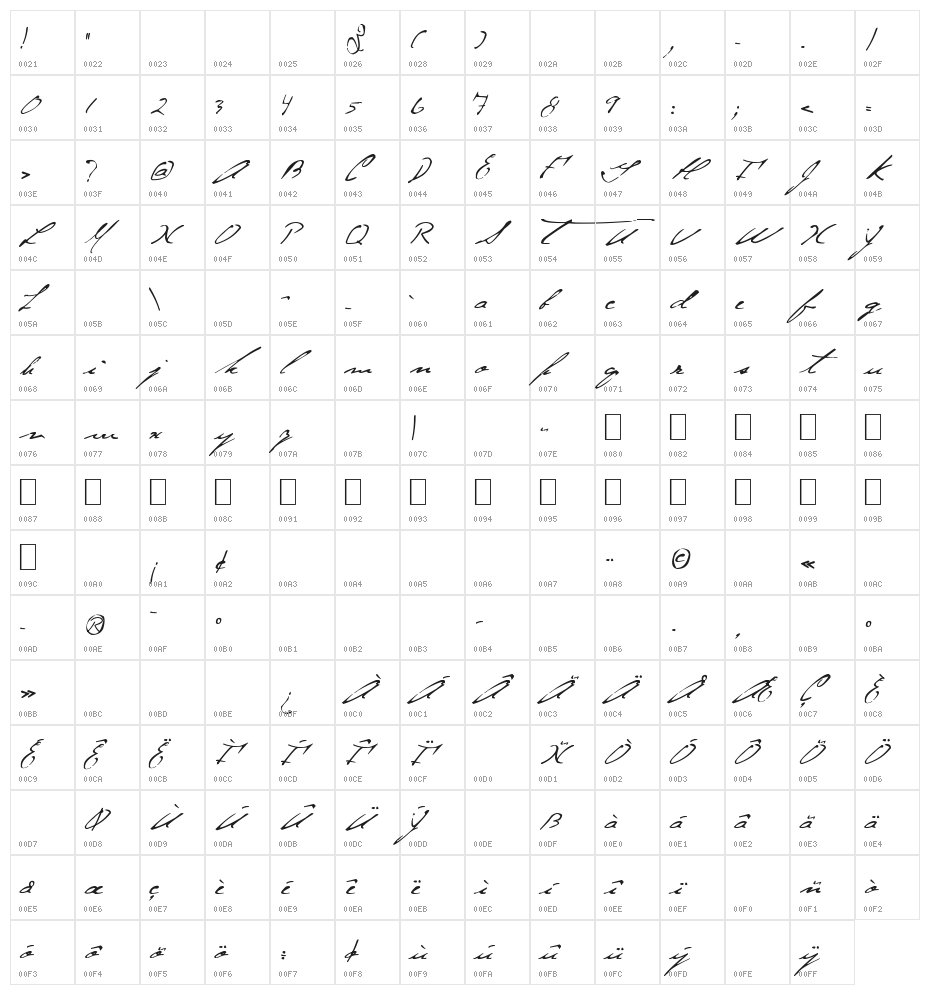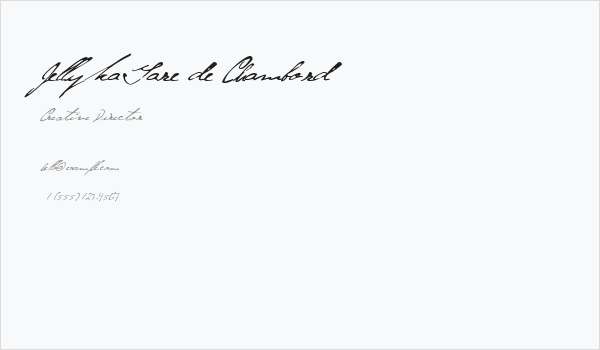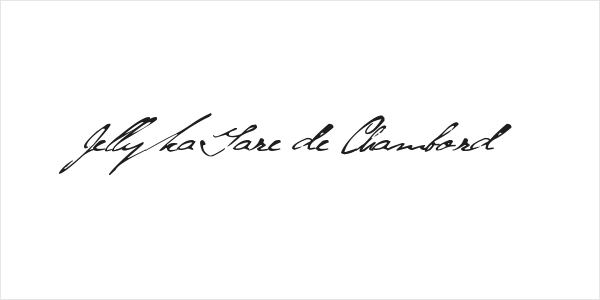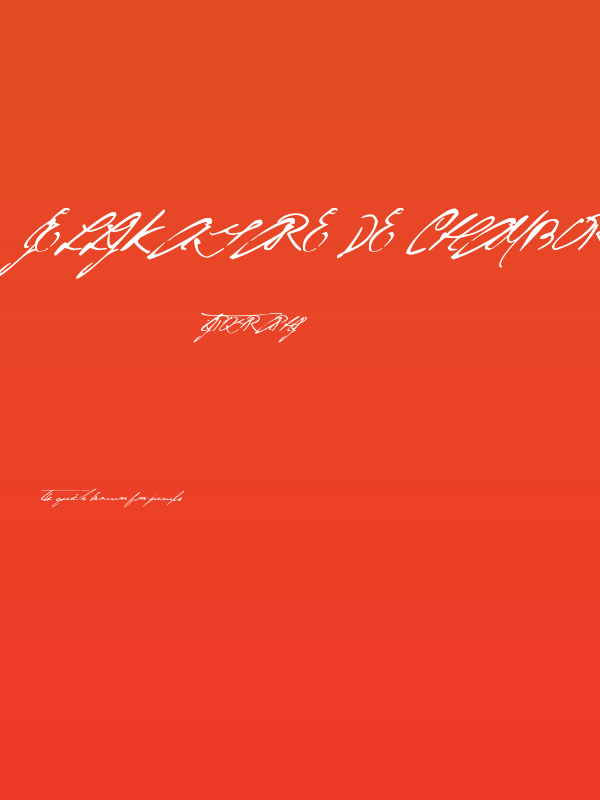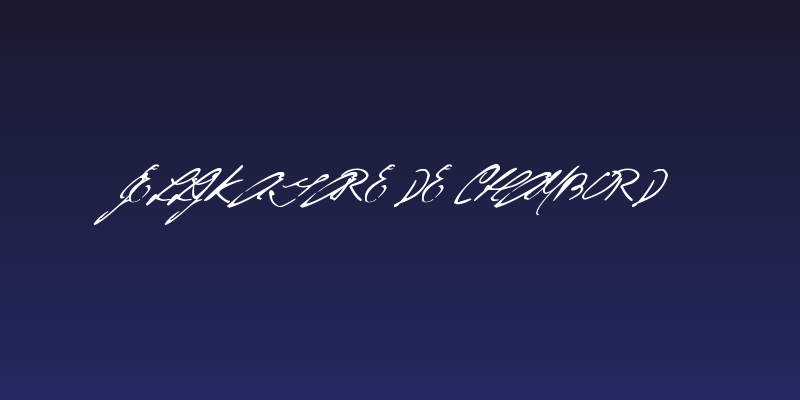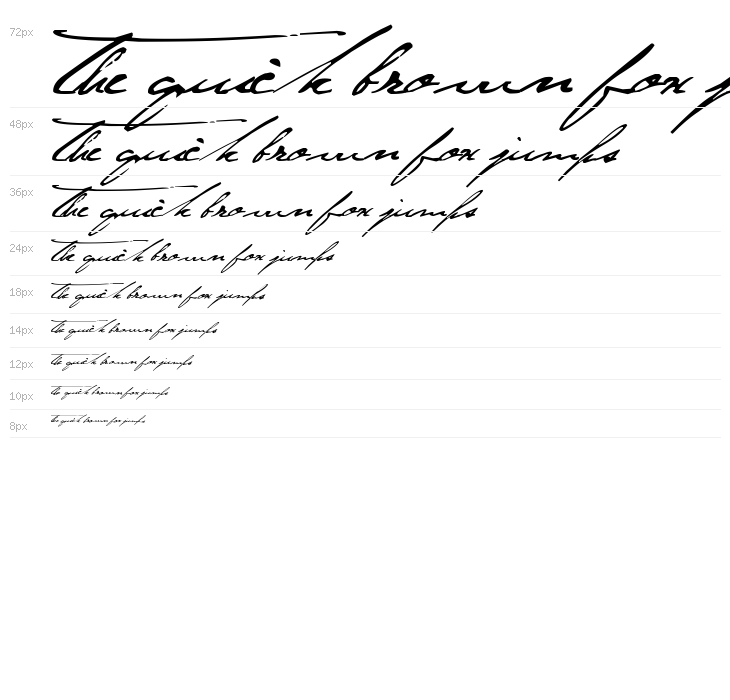
Jellyka Gare de Chambord Font
Jellyka Gare de Chambord Description
This font exudes a whimsical and elegant charm, reminiscent of handwritten calligraphy. Its flowing, cursive style is characterized by sweeping curves and intricate loops, giving it a distinctly personal and artistic feel. The letters are connected in a fluid manner, creating a sense of continuity and grace. The uppercase letters are bold and expressive, while the lowercase letters maintain a delicate balance with their slender strokes. This font's unique style is perfect for adding a touch of sophistication and creativity to any project.
| Proposed Projects | Ideal for wedding invitations, greeting cards, personal branding, and artistic projects. |